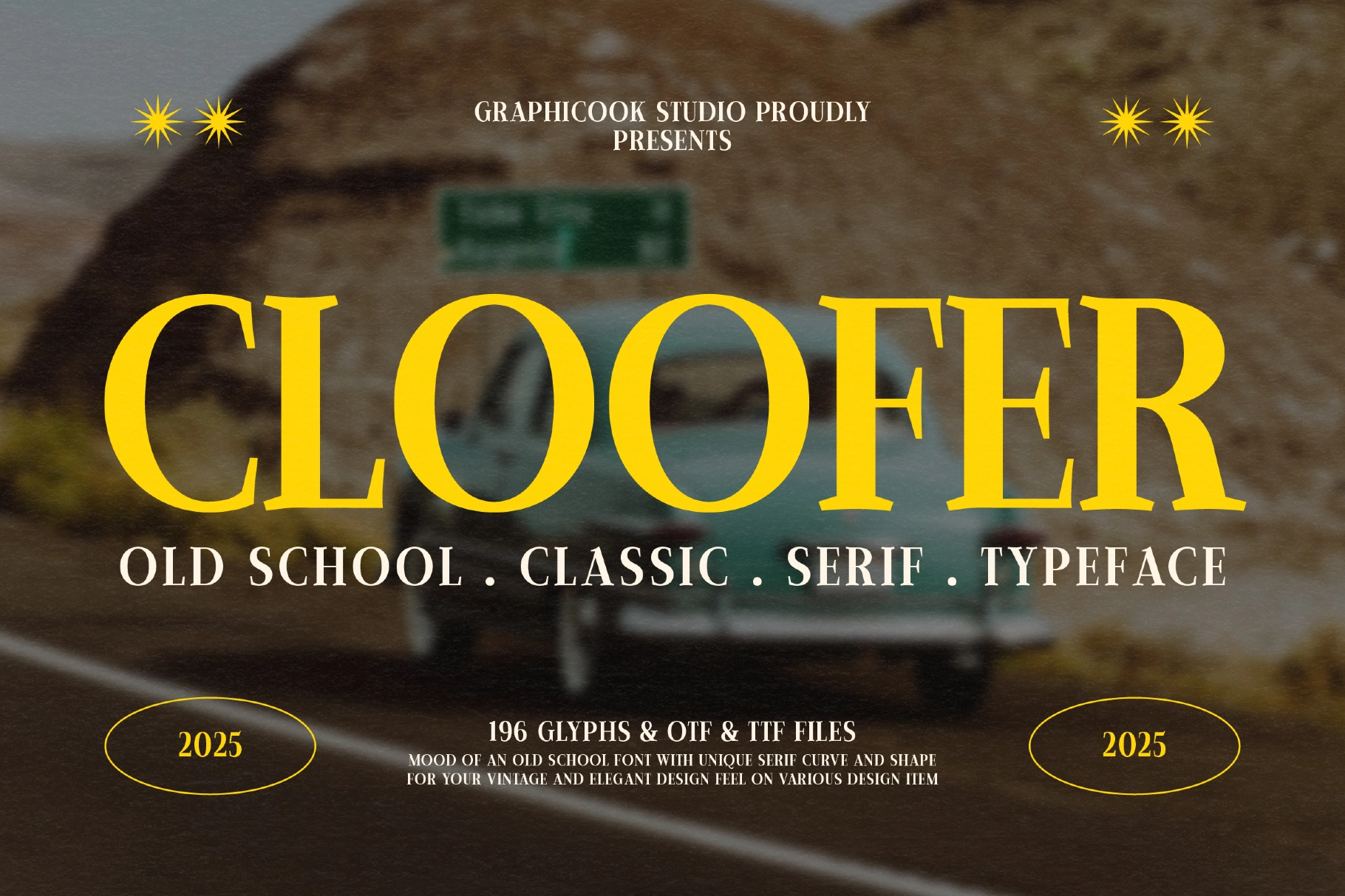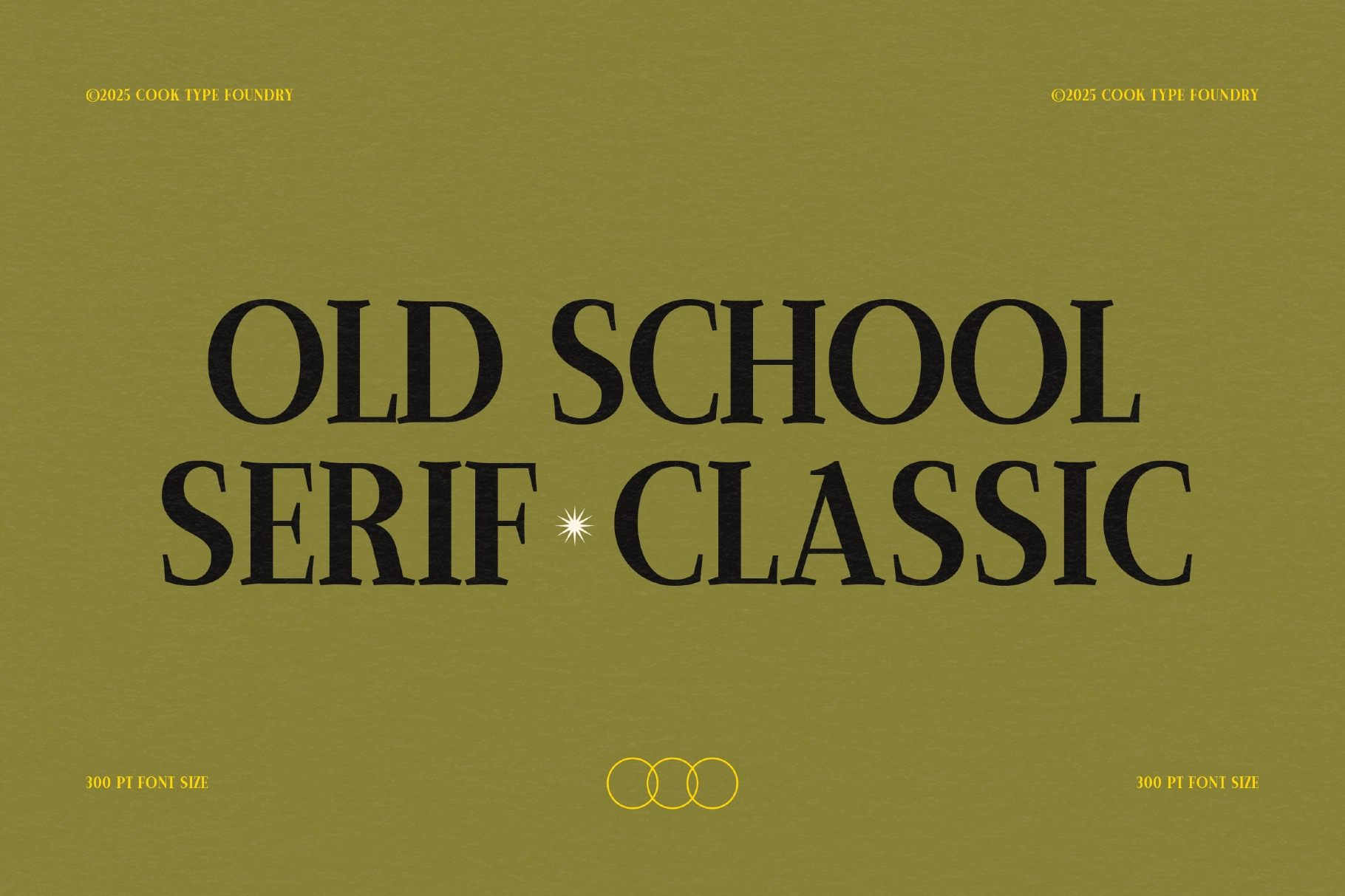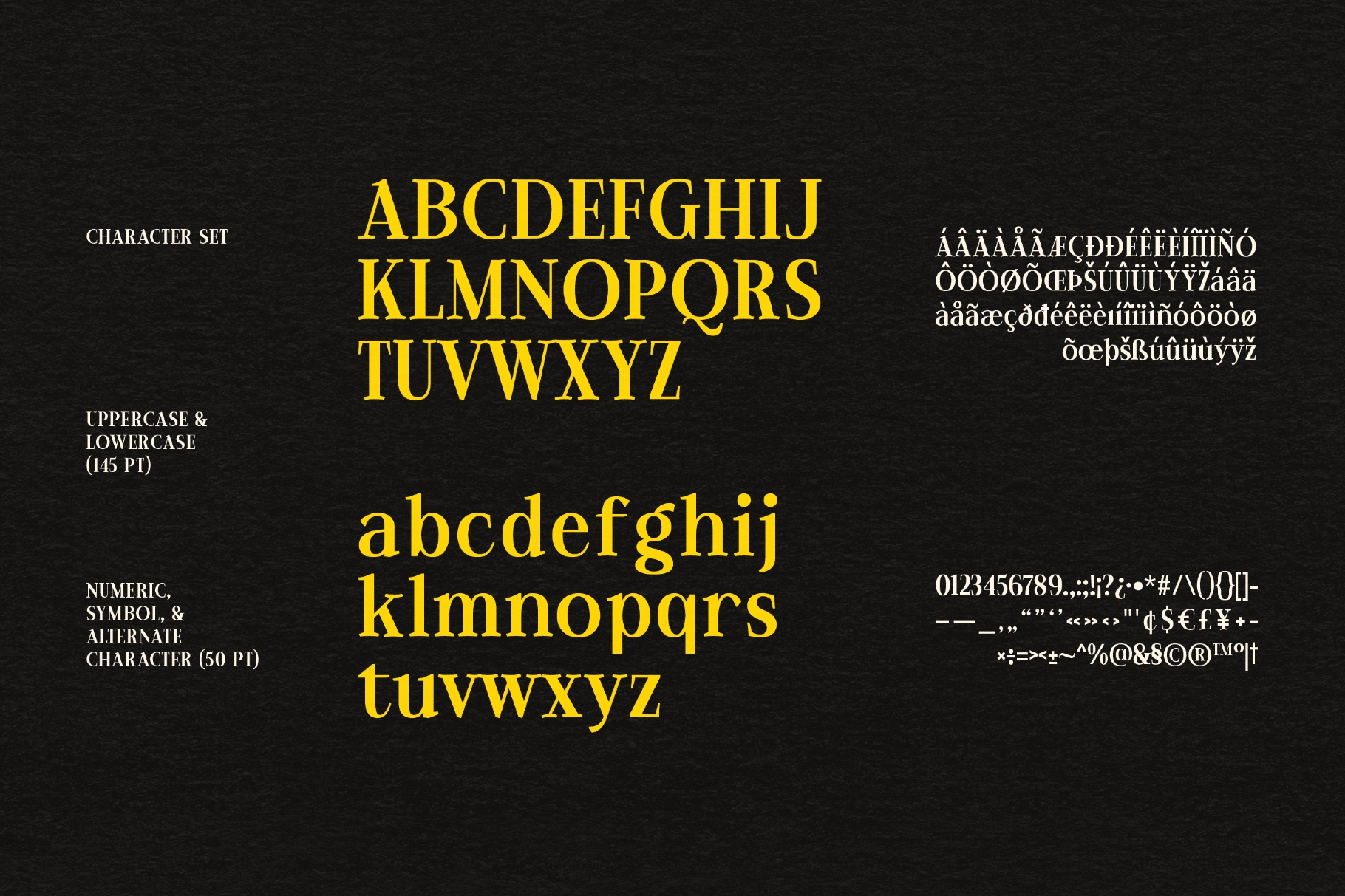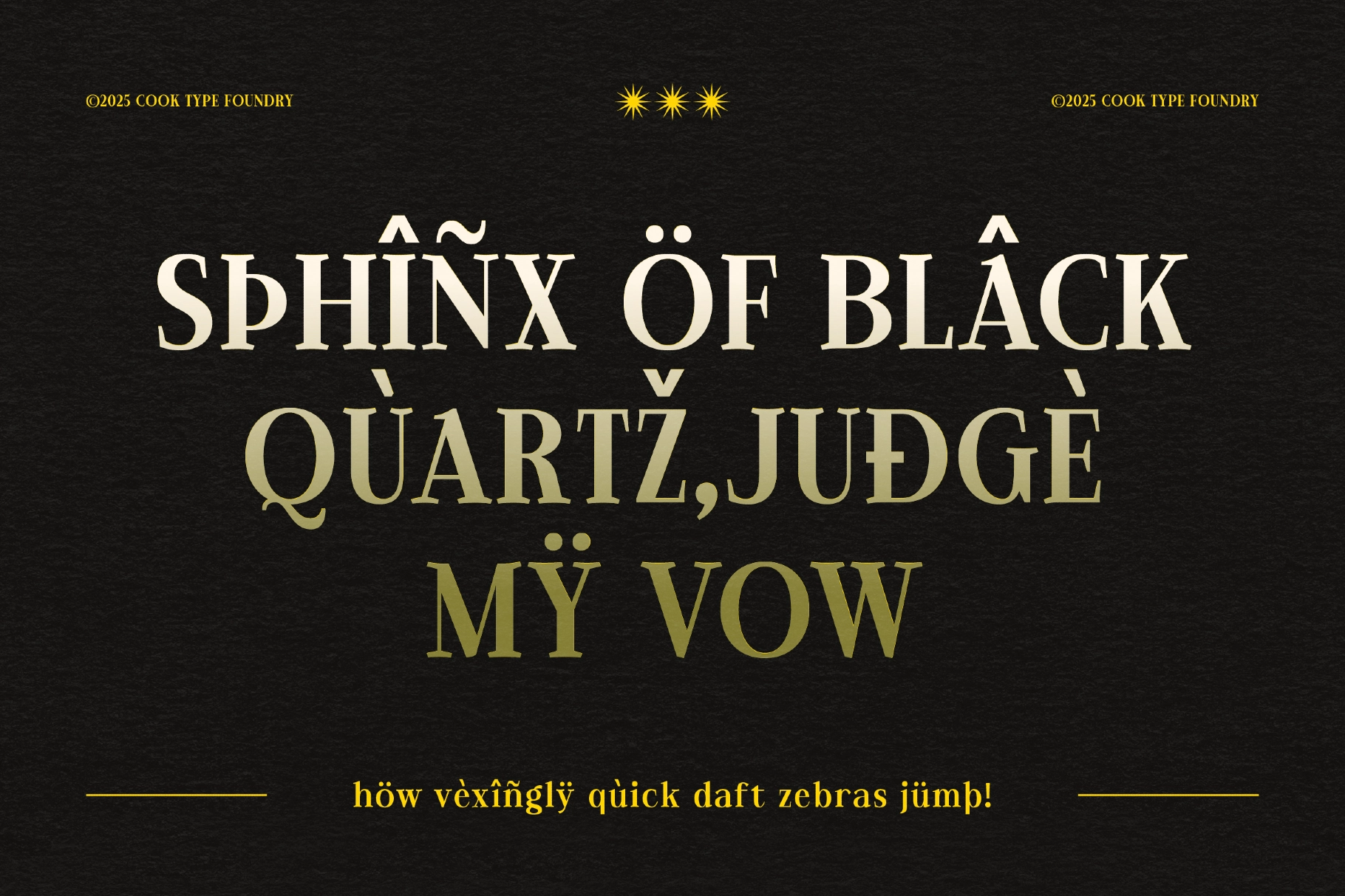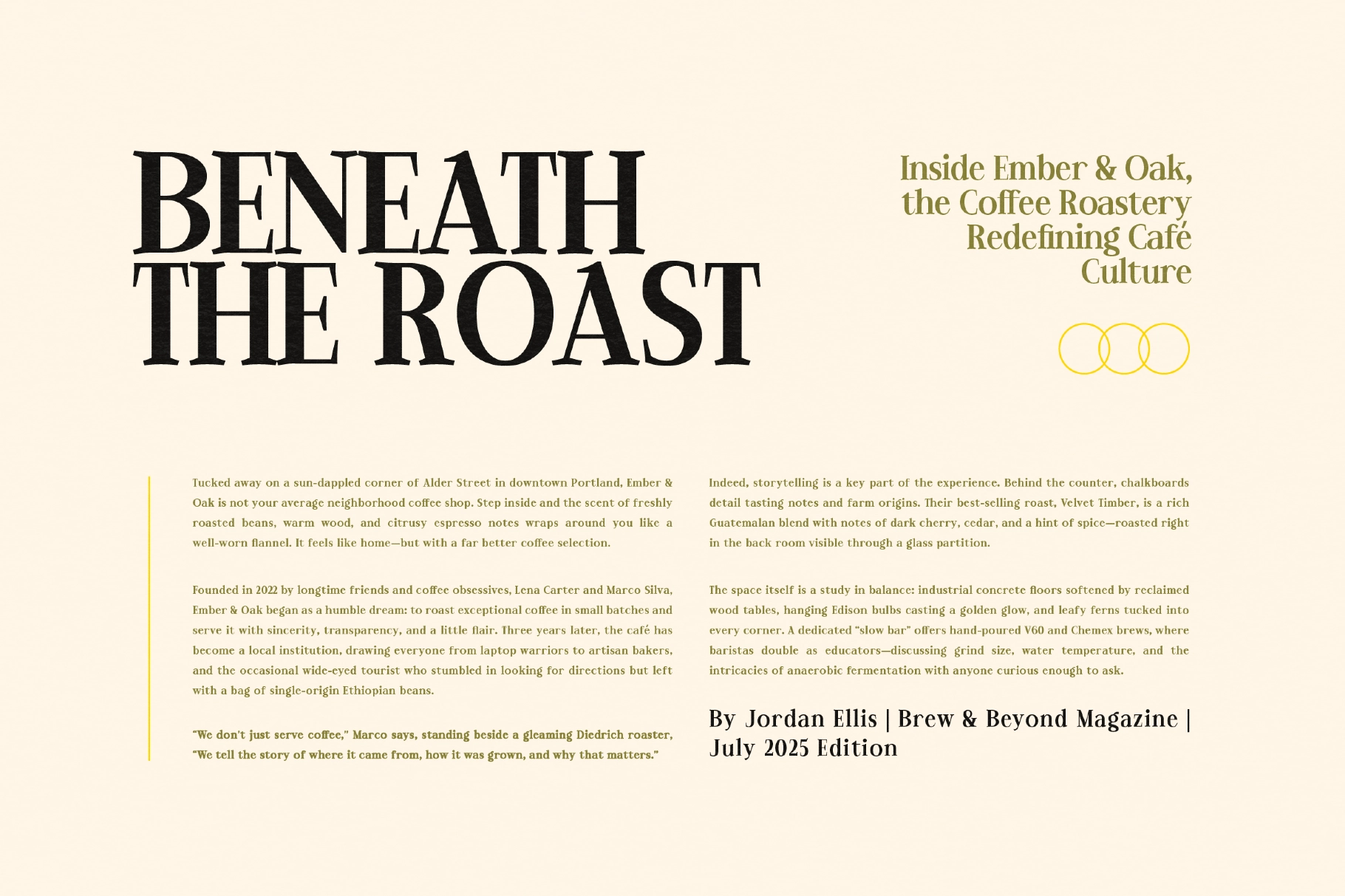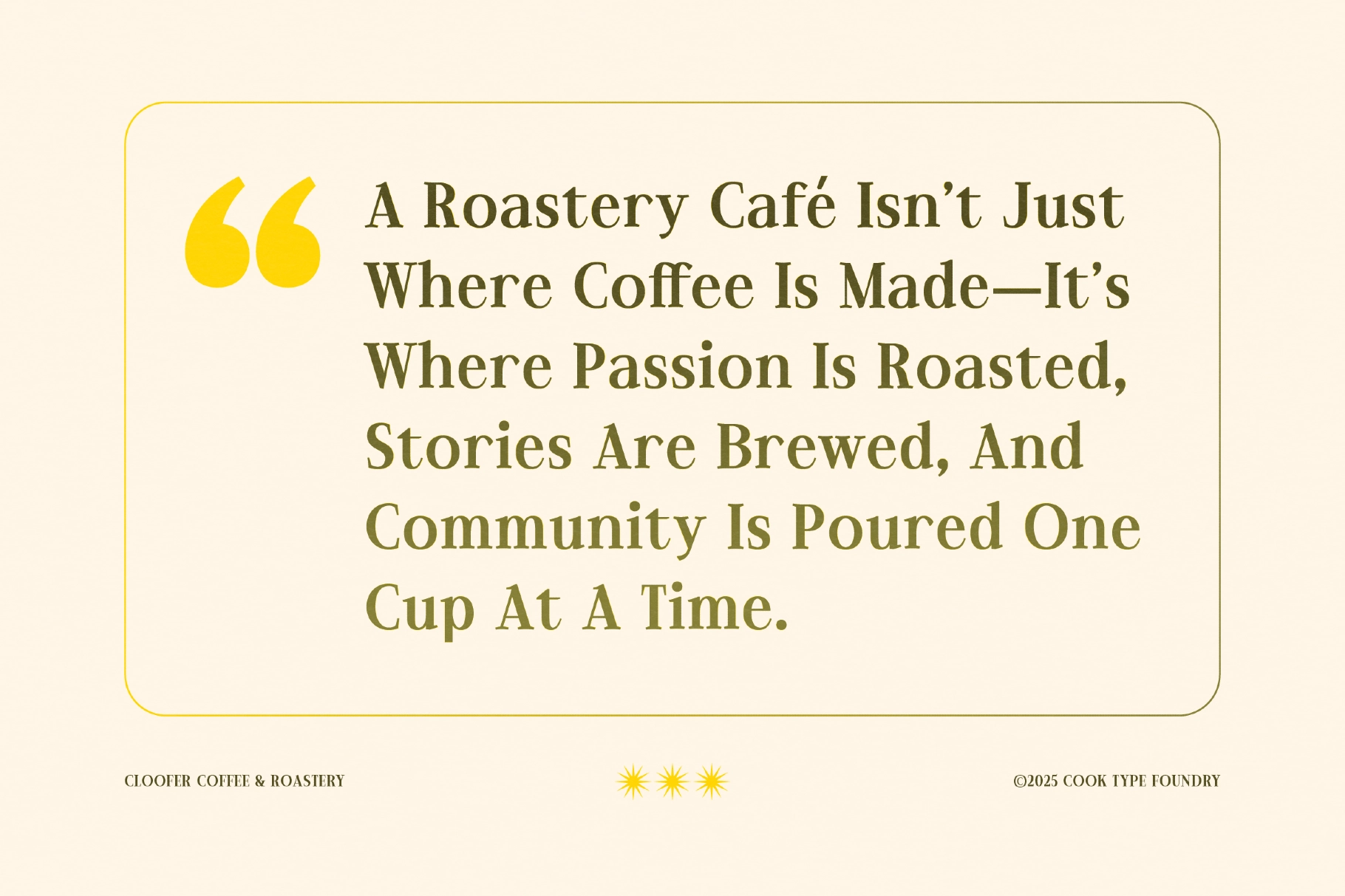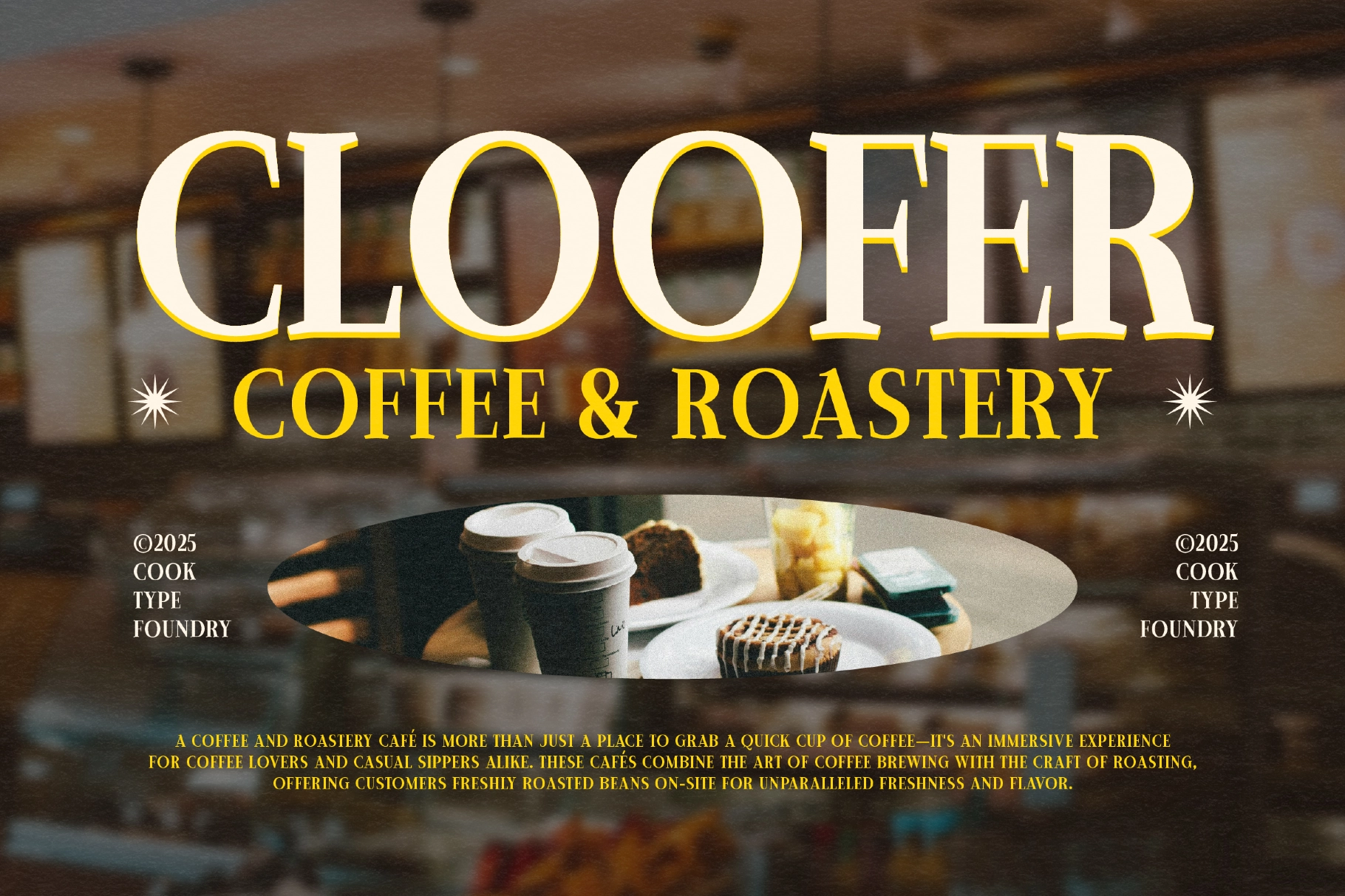
Cloofer Font
Cloofer
Cloofer is a classic serif font with bold letterforms and distinctive curves, bringing a vintage aesthetic with a timeless, retro appeal. Perfect for editorial, branding, or nostalgic-themed visuals.